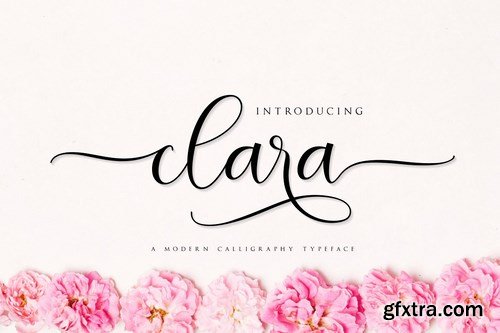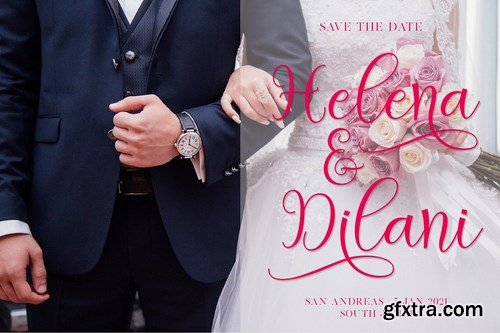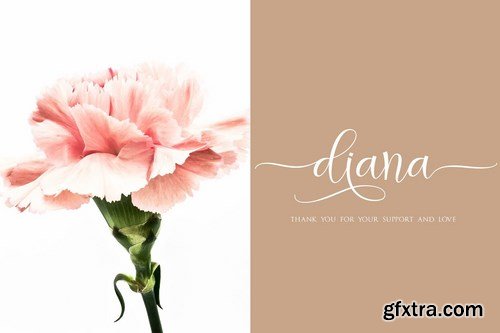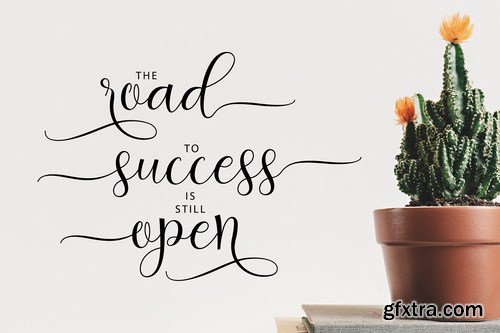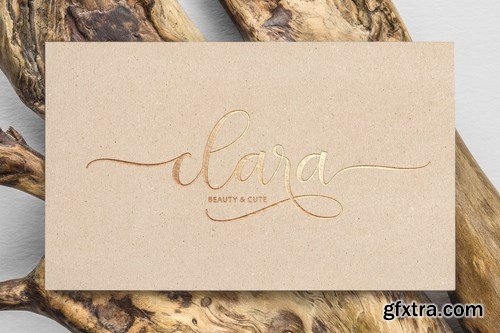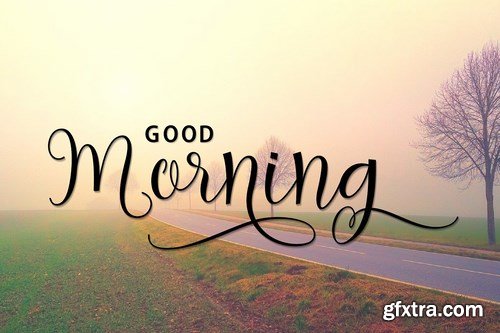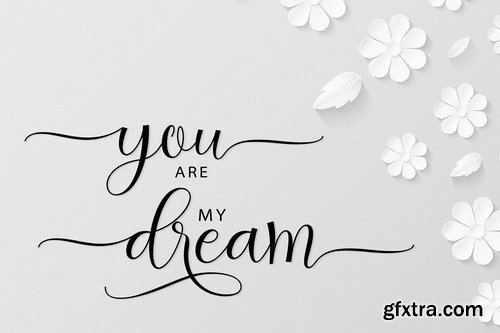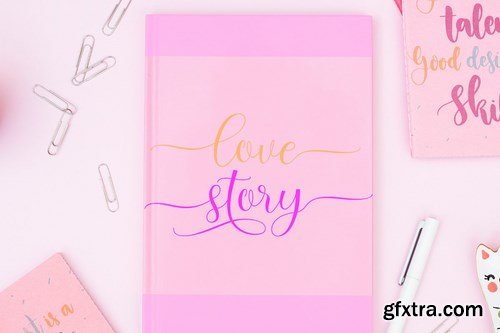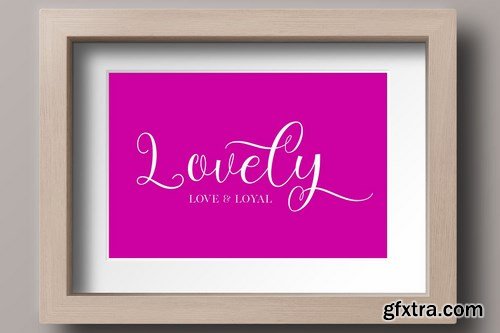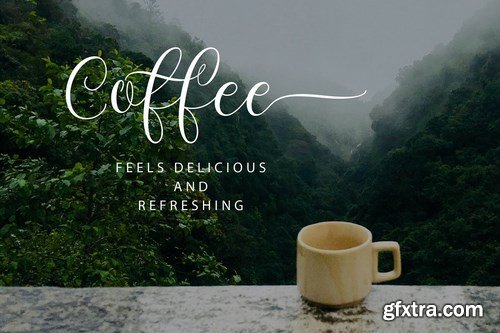
introducing clara script, a stylish Font Style. This beautiful script font offers your personal touch to your latest art project with elegant, classy and modern look.
The clara Script offers gorgeous typographic perfect for many different projects such as logos & branding, invitations, stationery, wedding designs, social media posts, advertisements, product packaging, product designs, labels, photography, watermarks, special events or anything that needs handwriting taste. What's Included: clara OTF clara TTF Numeral and punctuation Ligatures 71 Stylistic Alternates & Swashes International Language Works on PC & Mac Simple installations Accessible in Adobe Illustrator, Adobe Photoshop, Adobe InDesign, even works on Microsoft Word. Thank you for your purchase! Hope you enjoy with our font!